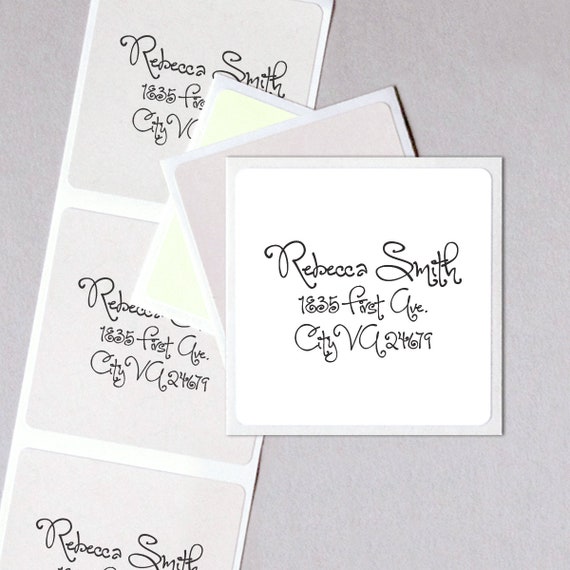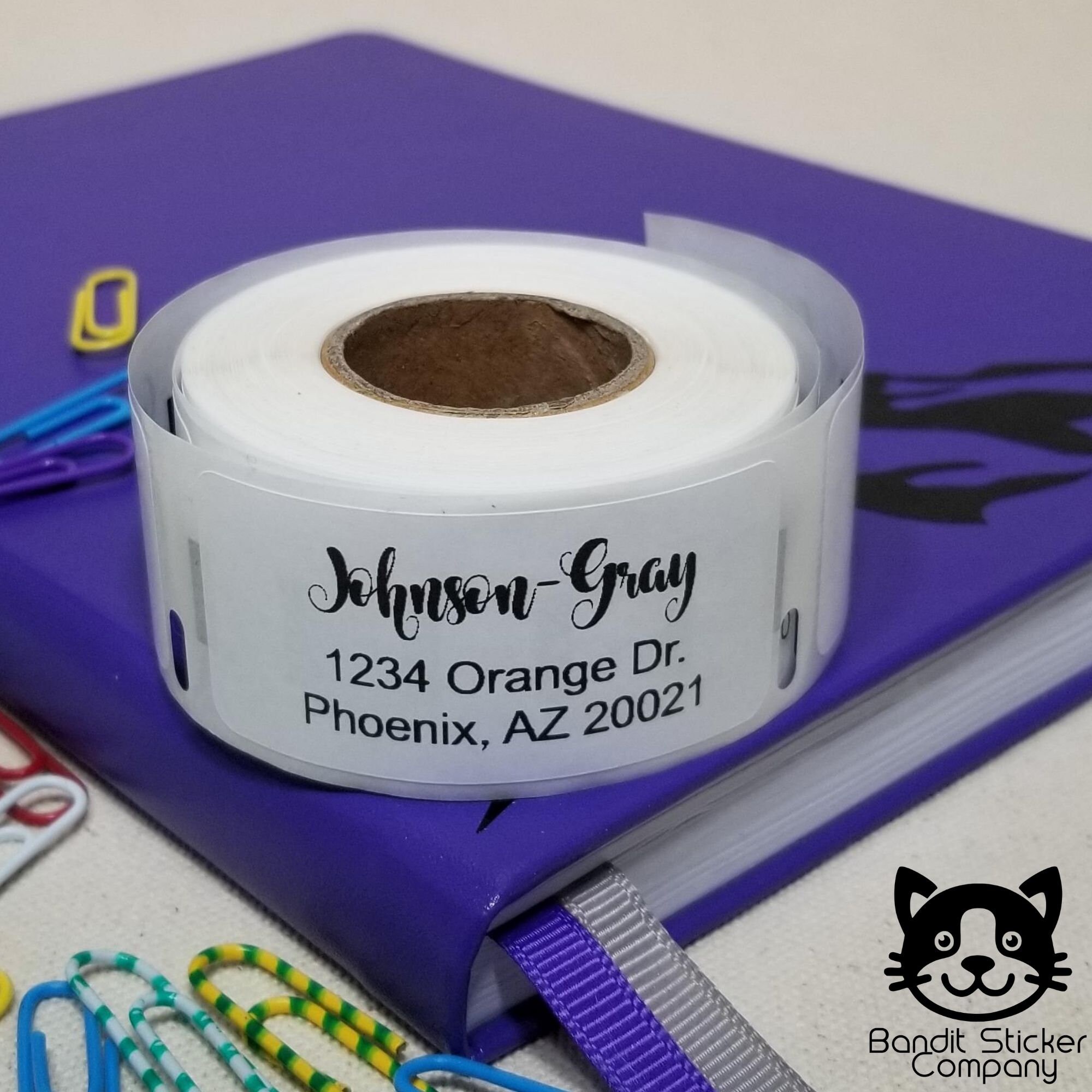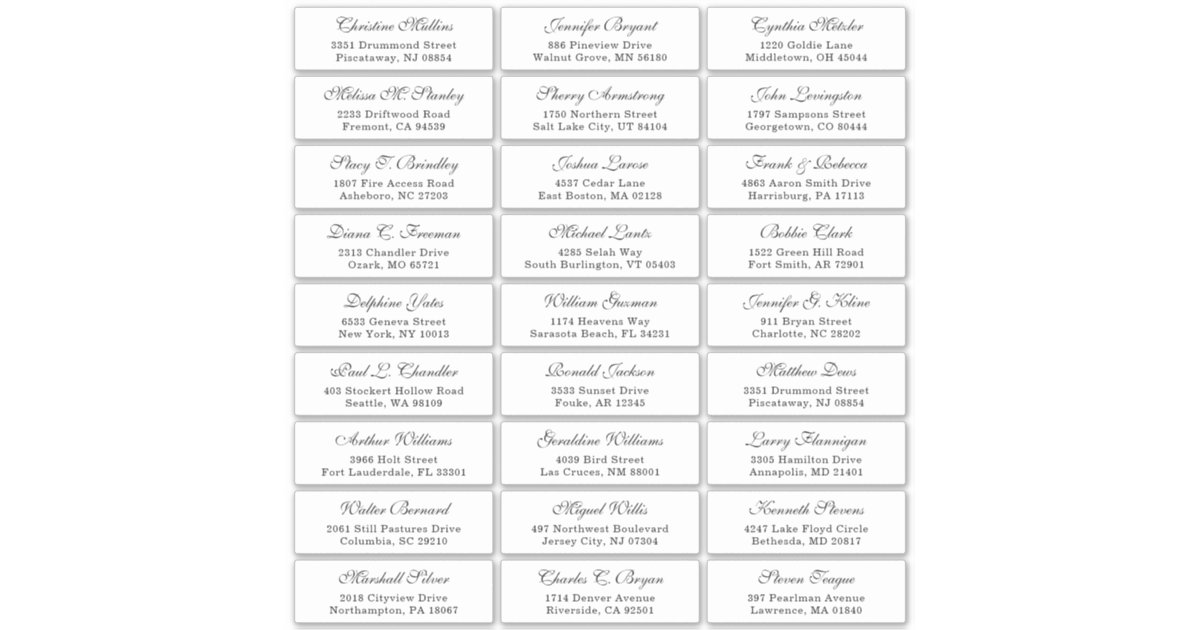
What Is A Good Font For Address Labels . Which fonts will work for your labels? From the elegance of a wedding invite to the clarity of a business package, a carefully selected font can make your labels both attractive. Do you want a typeface that is the font equivalent of a floral shirt and bermuda shorts or a crisp business suit? From arial to roboto, find the perfect font for readability and aesthetics. Explore the best fonts for labels in our comprehensive guide, featuring tips on readability, branding, and making your products stand out. Depending on the look you want to achieve, here are our font suggestions: Learn how to choose the best font for your product labels. Discover the best 15 fonts for address labels in word! Discover what makes a font readable and find the perfect match for your brand.
Explore the best fonts for labels in our comprehensive guide, featuring tips on readability, branding, and making your products stand out. Learn how to choose the best font for your product labels. From arial to roboto, find the perfect font for readability and aesthetics. From the elegance of a wedding invite to the clarity of a business package, a carefully selected font can make your labels both attractive. Which fonts will work for your labels? Do you want a typeface that is the font equivalent of a floral shirt and bermuda shorts or a crisp business suit? Depending on the look you want to achieve, here are our font suggestions: Discover the best 15 fonts for address labels in word! Discover what makes a font readable and find the perfect match for your brand.
Choosing the Perfect Font For Your Label Design
What Is A Good Font For Address Labels Explore the best fonts for labels in our comprehensive guide, featuring tips on readability, branding, and making your products stand out. Learn how to choose the best font for your product labels. Do you want a typeface that is the font equivalent of a floral shirt and bermuda shorts or a crisp business suit? Discover what makes a font readable and find the perfect match for your brand. From the elegance of a wedding invite to the clarity of a business package, a carefully selected font can make your labels both attractive. Discover the best 15 fonts for address labels in word! From arial to roboto, find the perfect font for readability and aesthetics. Depending on the look you want to achieve, here are our font suggestions: Explore the best fonts for labels in our comprehensive guide, featuring tips on readability, branding, and making your products stand out. Which fonts will work for your labels?
Beautiful Elegant Script font RSVP address label What Is A Good Font For Address Labels From the elegance of a wedding invite to the clarity of a business package, a carefully selected font can make your labels both attractive. From arial to roboto, find the perfect font for readability and aesthetics. Discover what makes a font readable and find the perfect match for your brand. Discover the best 15 fonts for address labels in word!. What Is A Good Font For Address Labels.
Chic White Simple Styled Typography Script Label Zazzle Typography What Is A Good Font For Address Labels From the elegance of a wedding invite to the clarity of a business package, a carefully selected font can make your labels both attractive. Depending on the look you want to achieve, here are our font suggestions: From arial to roboto, find the perfect font for readability and aesthetics. Explore the best fonts for labels in our comprehensive guide, featuring. What Is A Good Font For Address Labels.
Gifts You Treasure Monarchia Monogram Font Address Labels What Is A Good Font For Address Labels Which fonts will work for your labels? Explore the best fonts for labels in our comprehensive guide, featuring tips on readability, branding, and making your products stand out. Do you want a typeface that is the font equivalent of a floral shirt and bermuda shorts or a crisp business suit? Depending on the look you want to achieve, here are. What Is A Good Font For Address Labels.
Two Fonts Address Label What Is A Good Font For Address Labels Learn how to choose the best font for your product labels. Depending on the look you want to achieve, here are our font suggestions: Explore the best fonts for labels in our comprehensive guide, featuring tips on readability, branding, and making your products stand out. Discover what makes a font readable and find the perfect match for your brand. From. What Is A Good Font For Address Labels.
Return Address Labels With Script Font Simple Return Address Labels What Is A Good Font For Address Labels Which fonts will work for your labels? Explore the best fonts for labels in our comprehensive guide, featuring tips on readability, branding, and making your products stand out. From the elegance of a wedding invite to the clarity of a business package, a carefully selected font can make your labels both attractive. Learn how to choose the best font for. What Is A Good Font For Address Labels.
Custom Address Labels, Script Font Address Labels, Return Mailing What Is A Good Font For Address Labels Depending on the look you want to achieve, here are our font suggestions: From the elegance of a wedding invite to the clarity of a business package, a carefully selected font can make your labels both attractive. Do you want a typeface that is the font equivalent of a floral shirt and bermuda shorts or a crisp business suit? Discover. What Is A Good Font For Address Labels.
Elegant Script Typography Address Label What Is A Good Font For Address Labels From arial to roboto, find the perfect font for readability and aesthetics. Depending on the look you want to achieve, here are our font suggestions: Which fonts will work for your labels? From the elegance of a wedding invite to the clarity of a business package, a carefully selected font can make your labels both attractive. Discover what makes a. What Is A Good Font For Address Labels.
Custom Address Labels, Script Font Address Labels, Return Mailing What Is A Good Font For Address Labels Discover the best 15 fonts for address labels in word! Which fonts will work for your labels? Learn how to choose the best font for your product labels. Do you want a typeface that is the font equivalent of a floral shirt and bermuda shorts or a crisp business suit? Explore the best fonts for labels in our comprehensive guide,. What Is A Good Font For Address Labels.